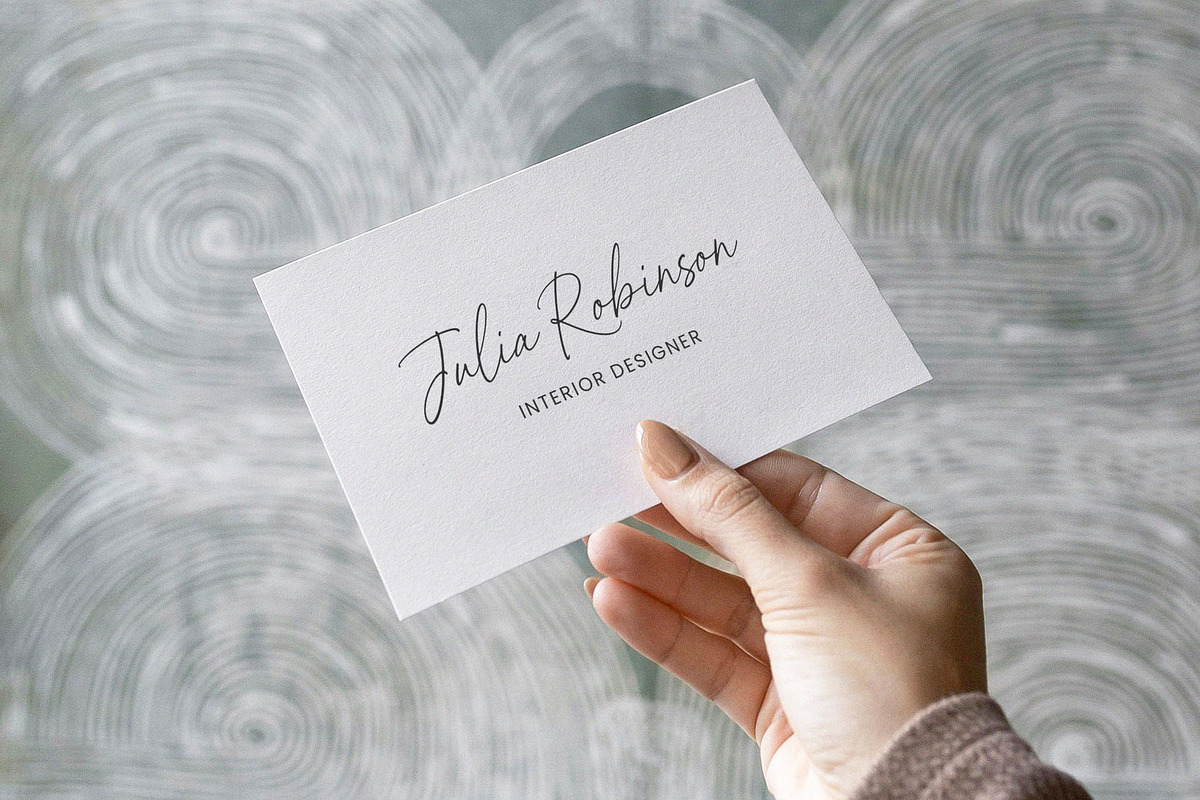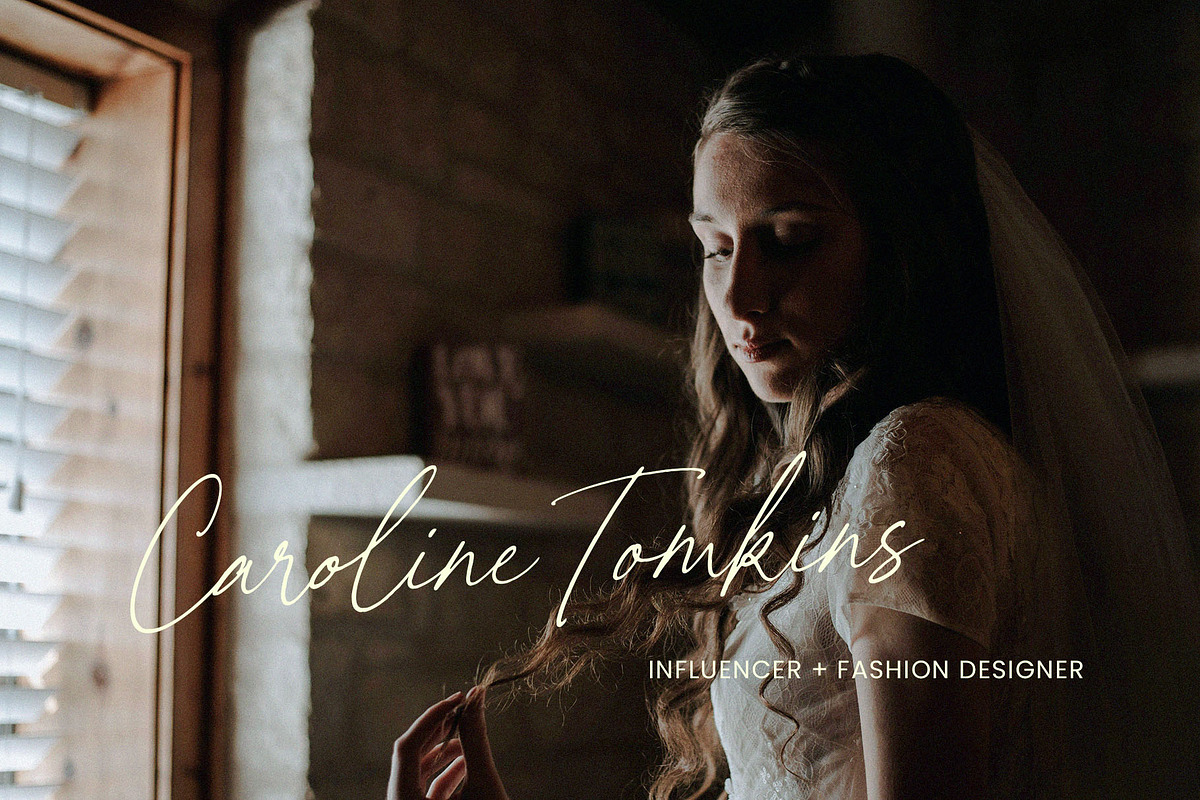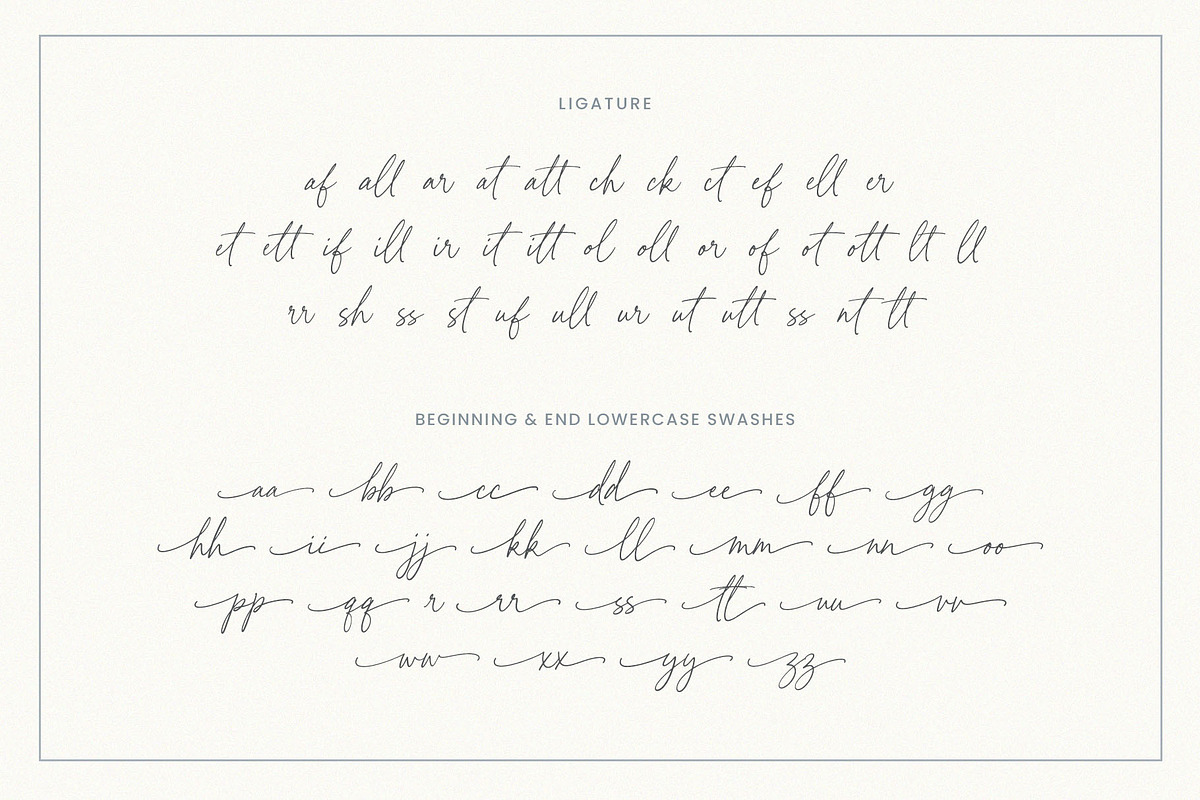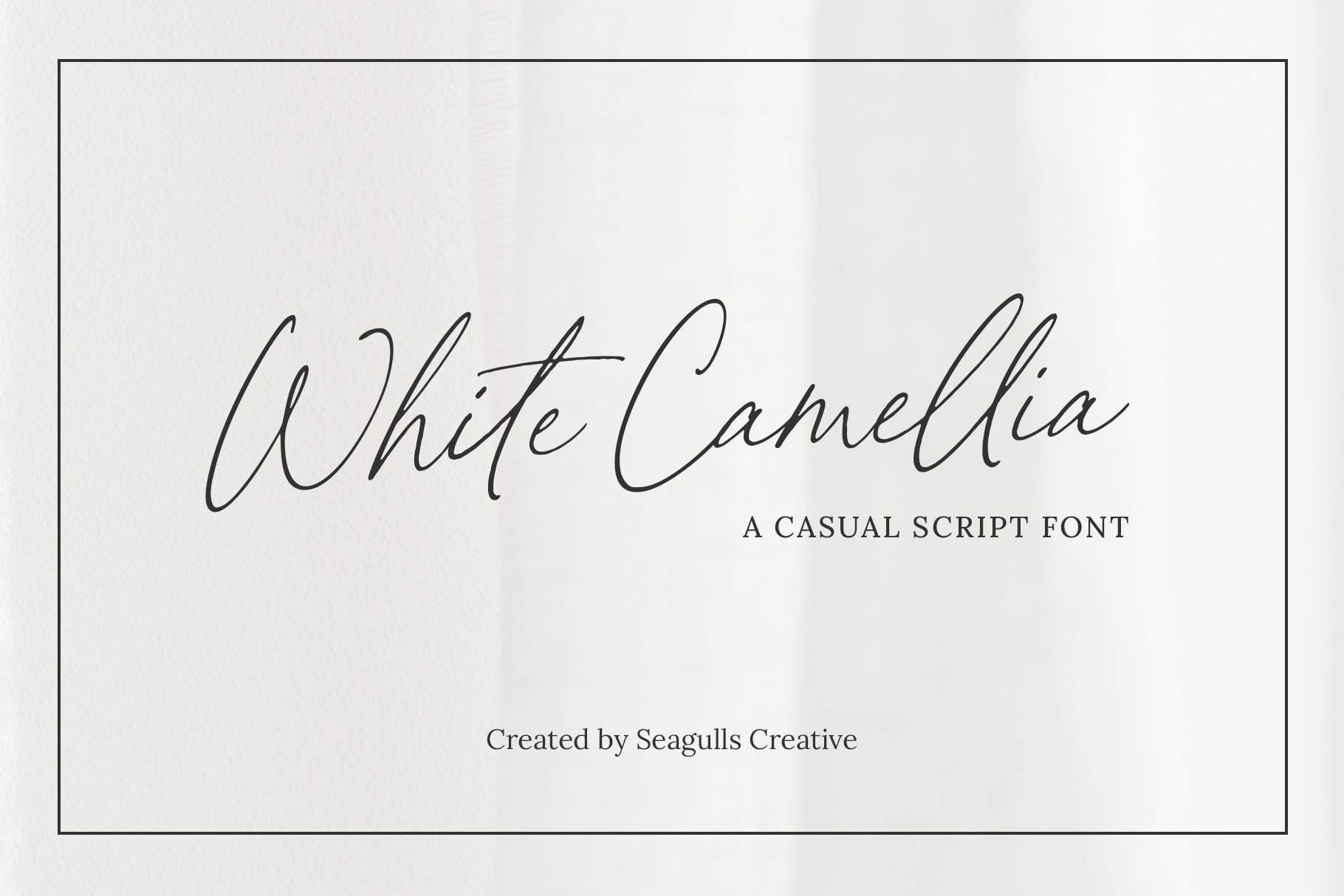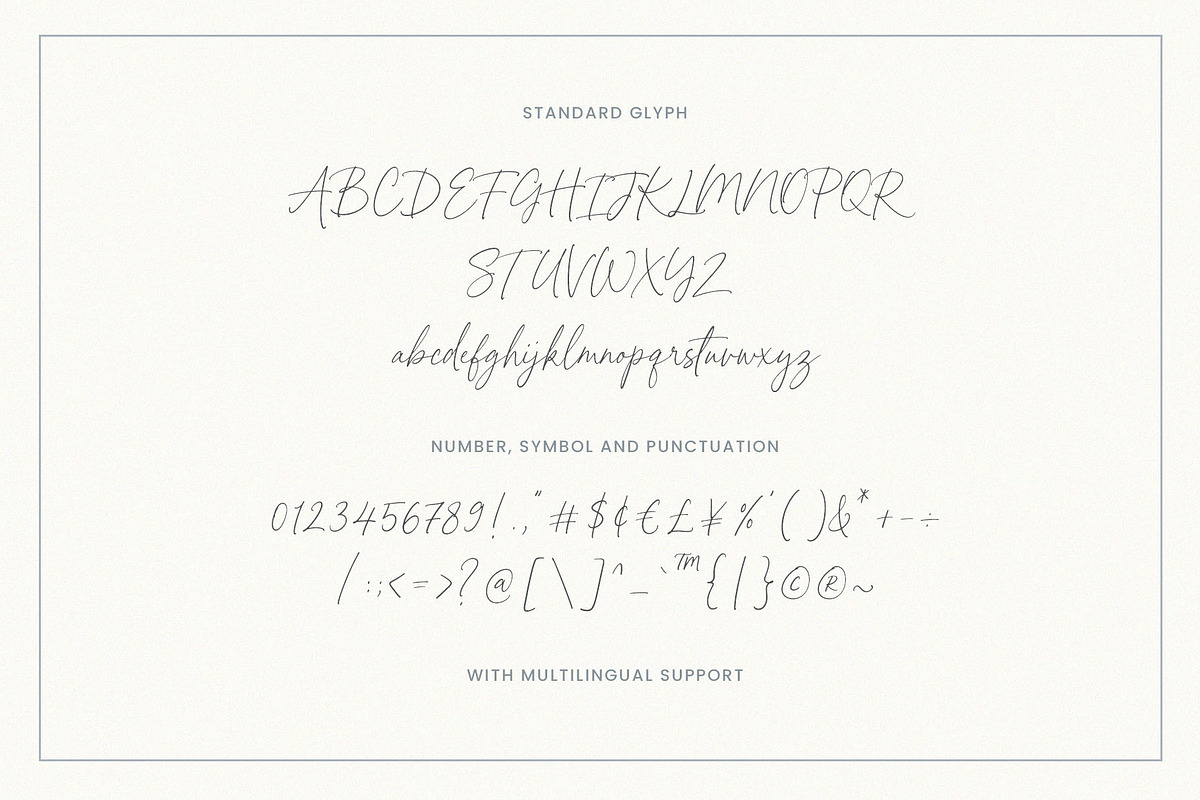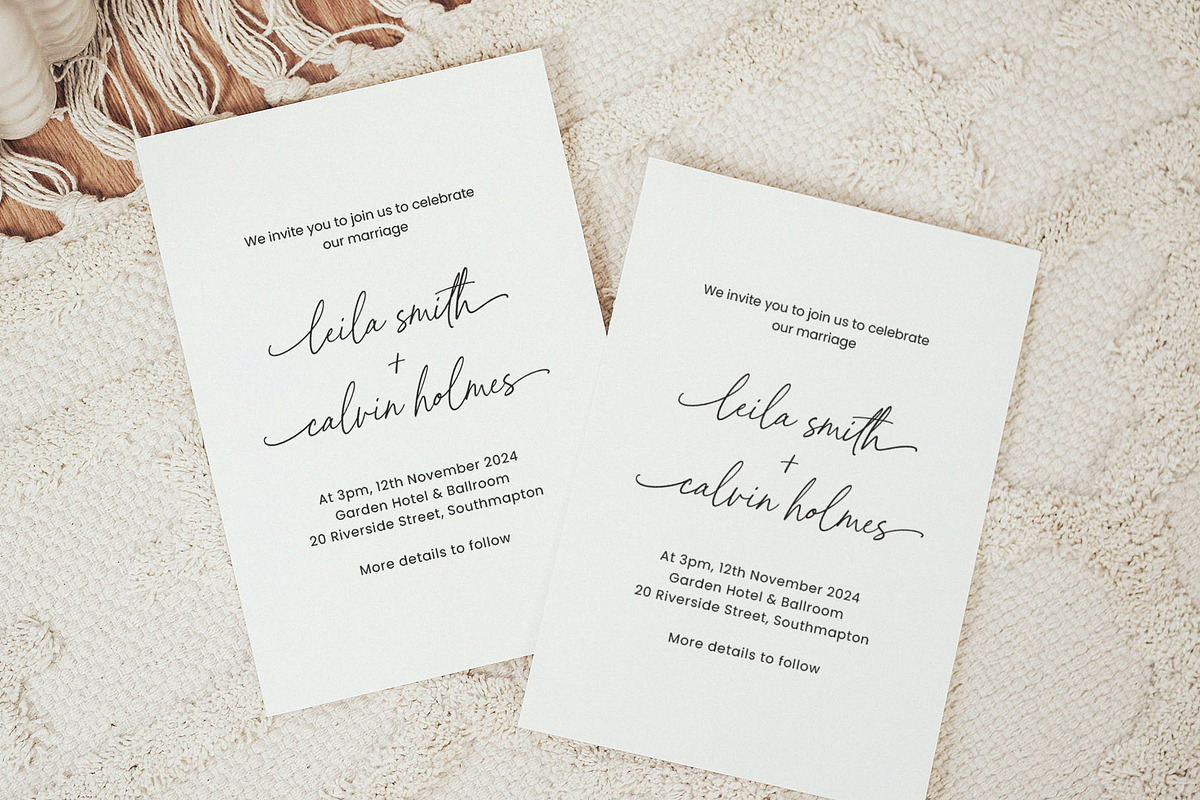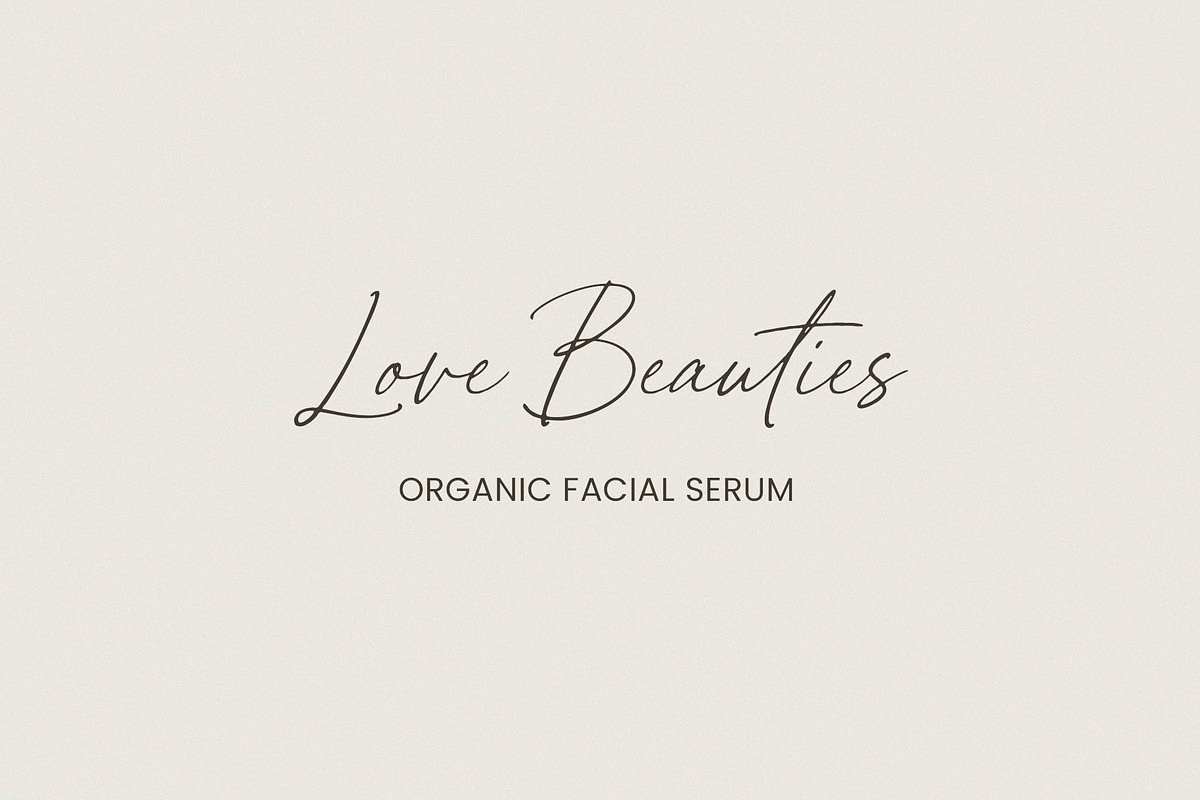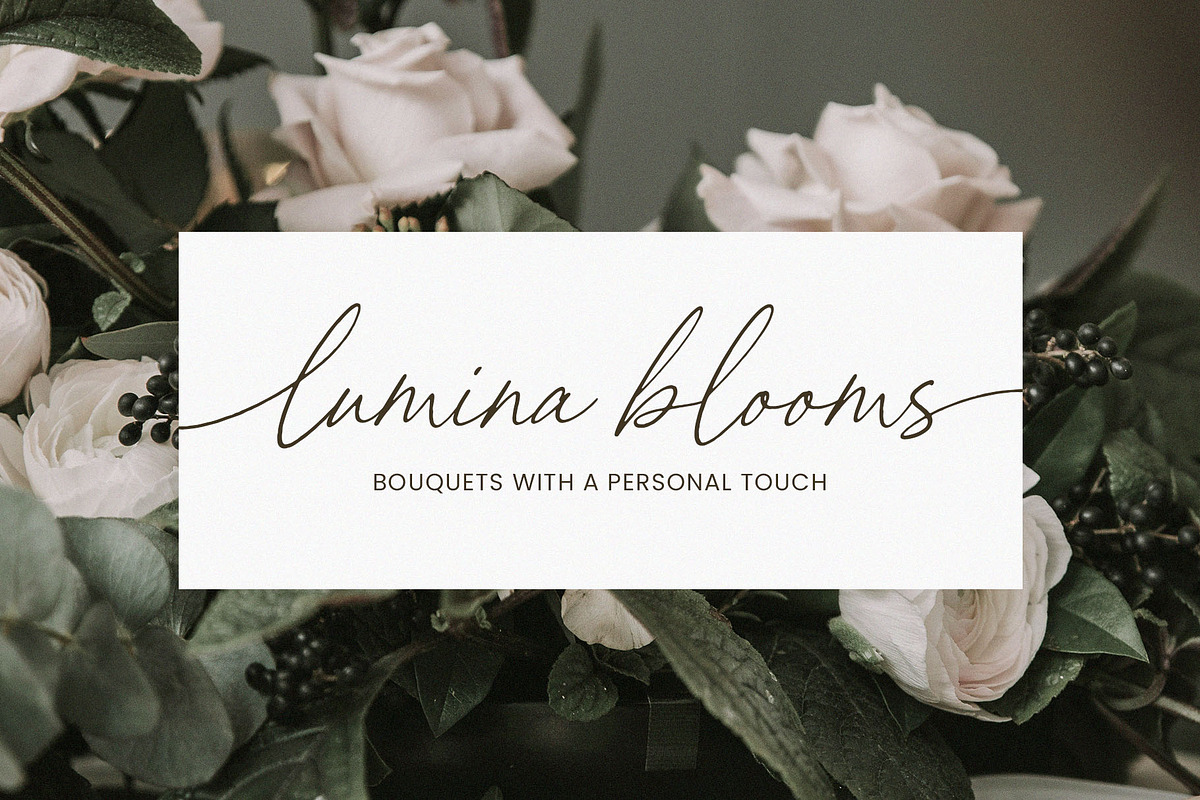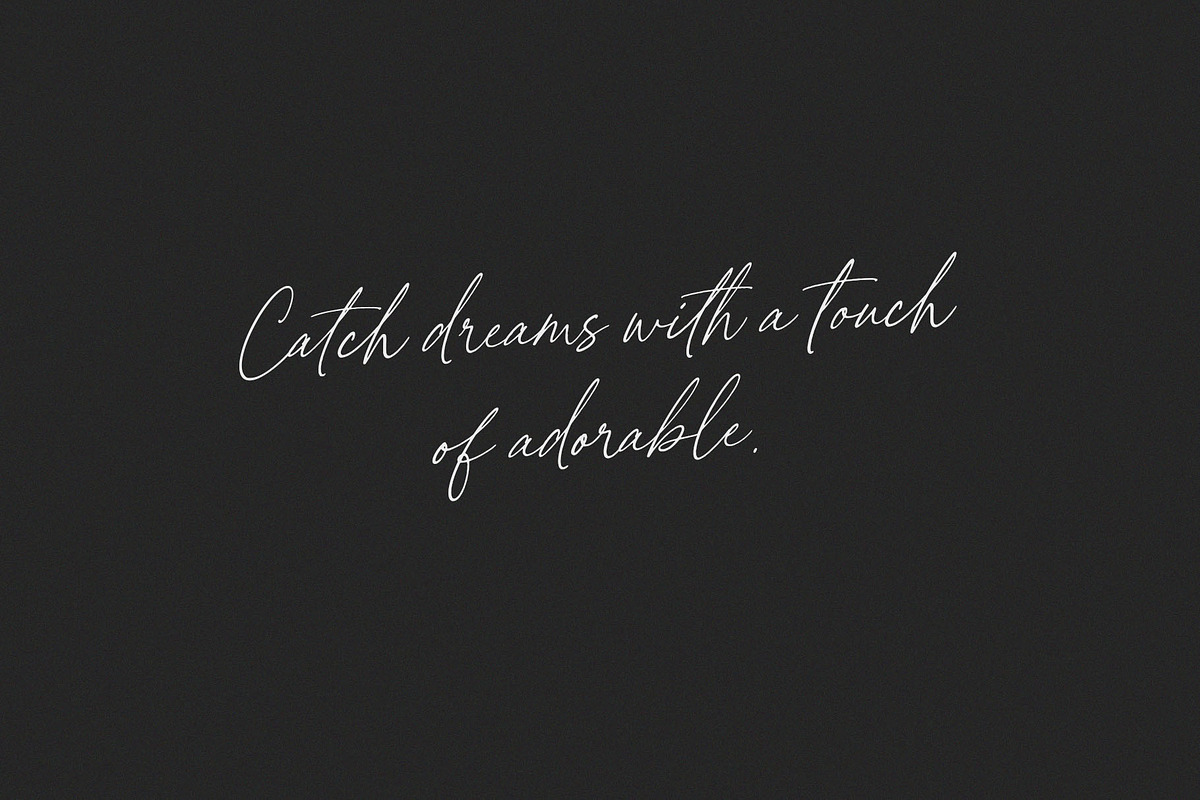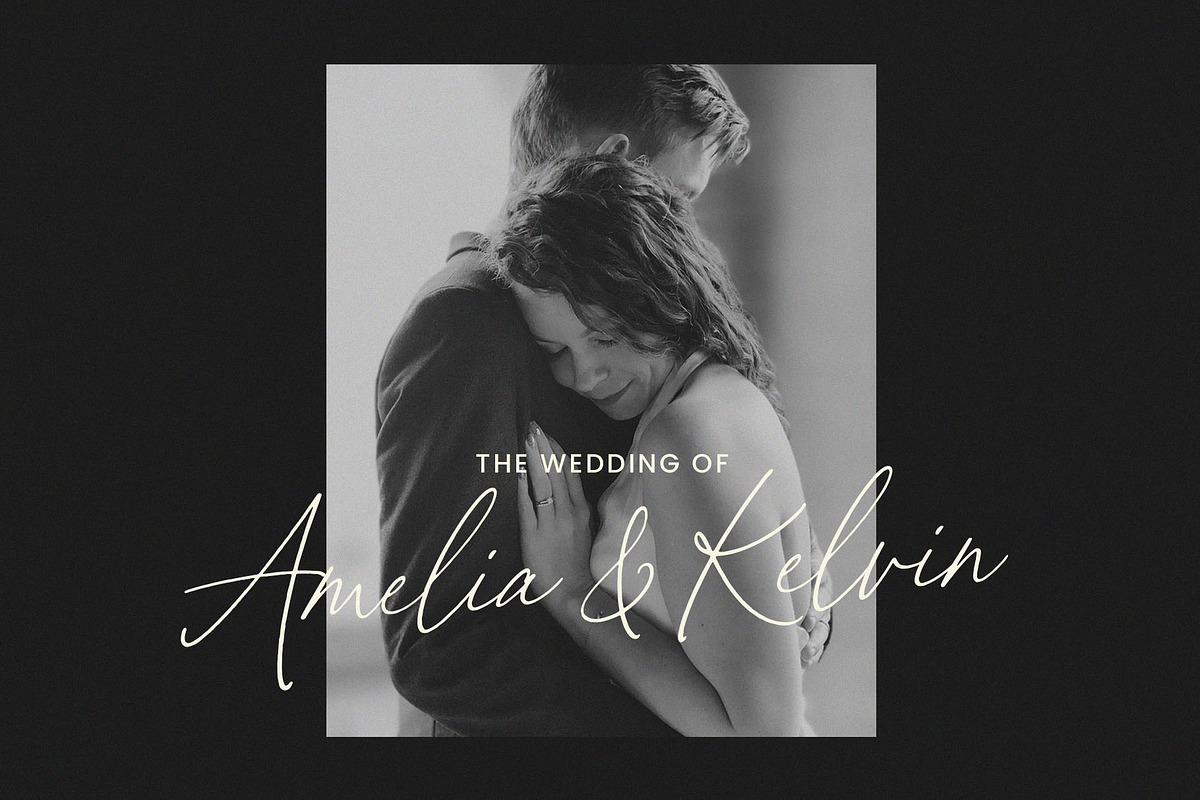
White Camellia Script Font
Hello everyone, I would like to introduce White Camellia a modern casual script font.
White Camellia can be used for a variety of projects such as branding, photography, invitations, stationery, wedding designs, social media posts, advertising, product packaging, product design and other romantic projects.
- Letters, numbers, symbols, punctuation, ligatures, beginning and ending
- Fonts include multilingual support